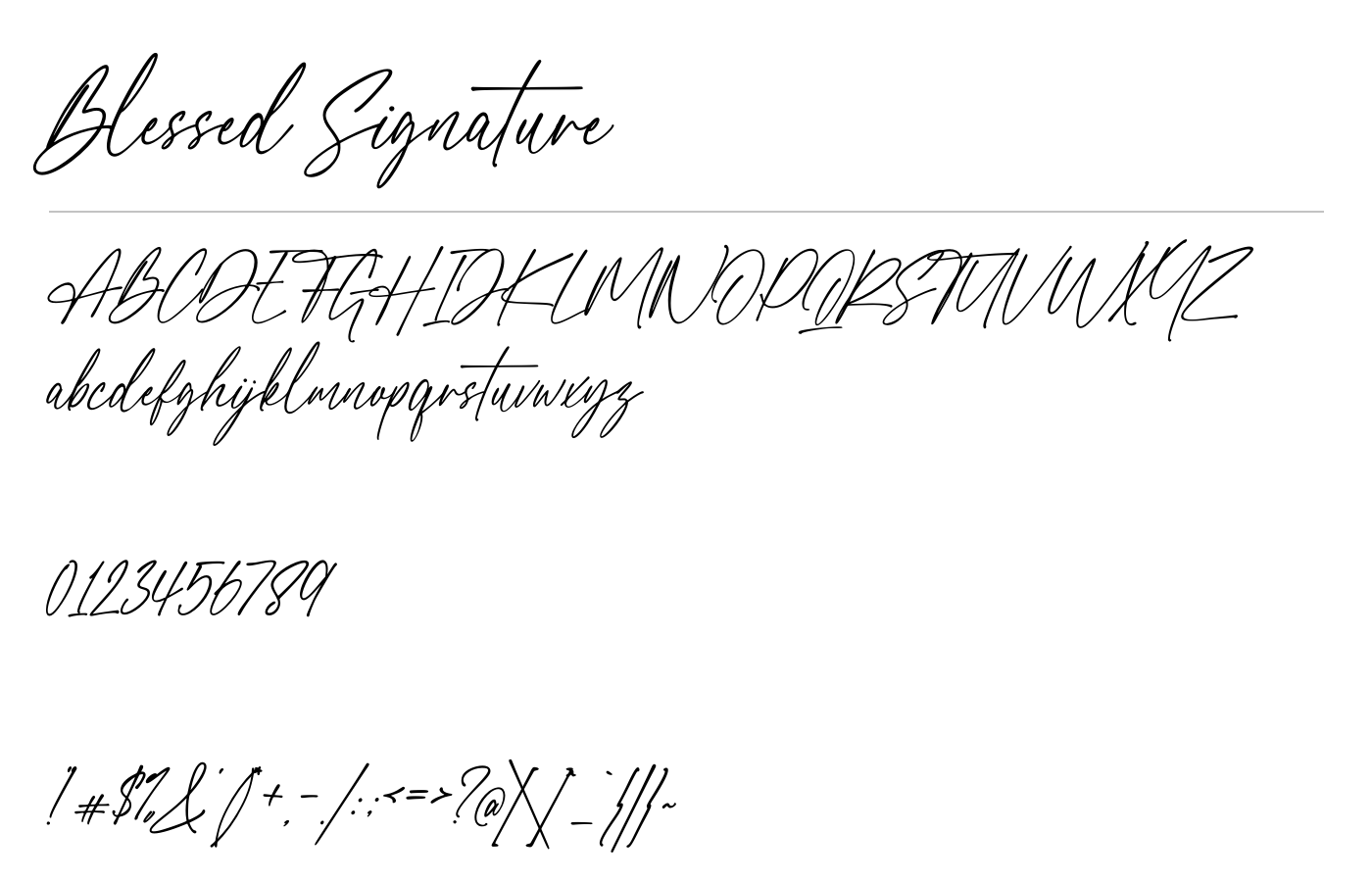
Blessed Signature Font is a delicate, elegant handwritten script that mimics a personal, flowing signature with fine, slender strokes and high, airy letterforms. Its light weight and slightly irregular lines give it a natural, authentic feel, making it perfect for branding, invitations, and any design needing a touch of sophistication and personal style. This font works beautifully in logos, luxury packaging, and editorial headlines where a refined, graceful impression is desired.
Blessed Signature Font
About Blessed Signature Font